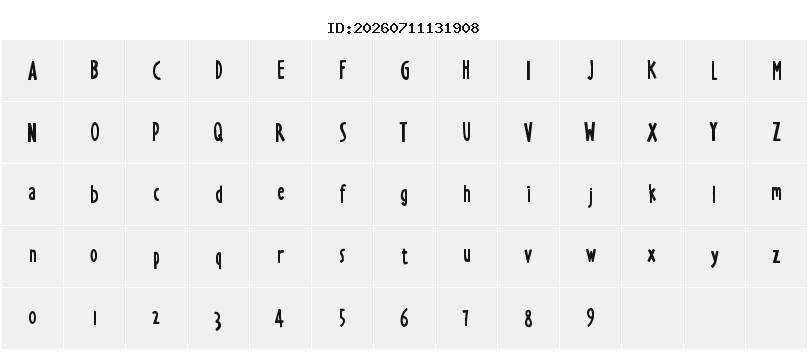
• Font Name: Markus the Cow
• Full Font Name: Markus the Cow
• Version: Version 1.00 September 2, 2005, initial release
About Markus the Cow.ttf
Markus the Cow.ttf is a modern, elegant sans-serif font designed for ultimate readability and visual harmony. Perfect for branding, headlines, web design, and print materials.